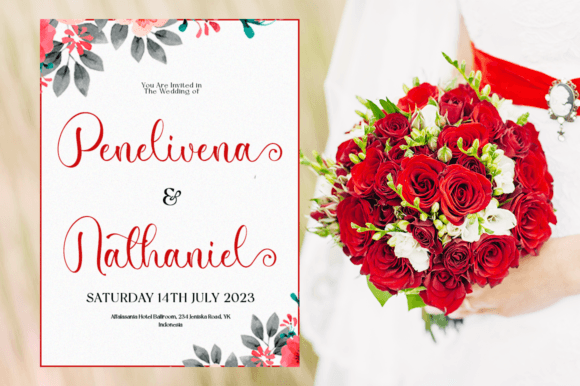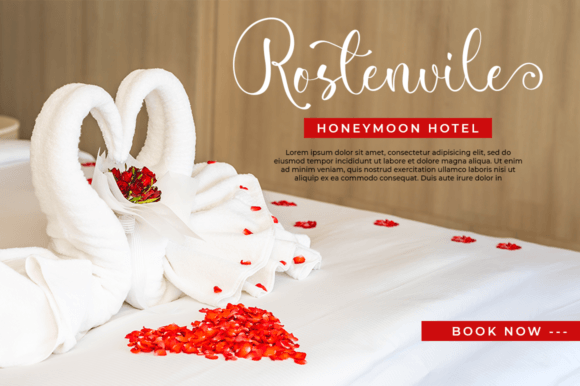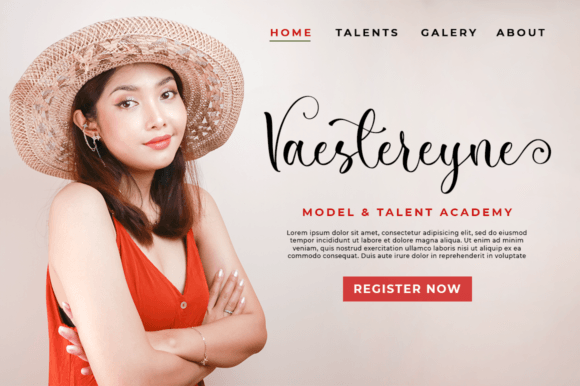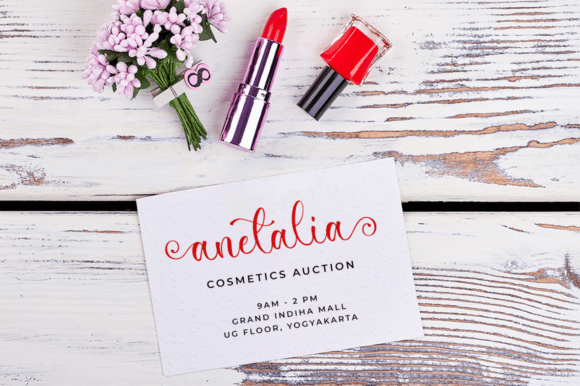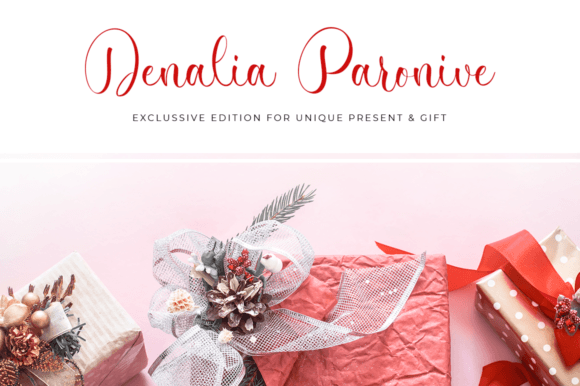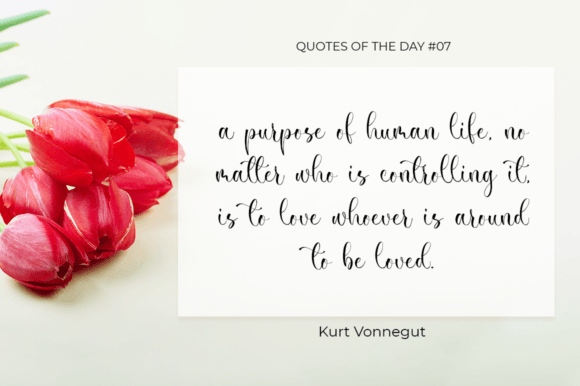
Introduction to Seraphime Font
Seraphime is a beautiful and elegant script font.
Its modern and classy look makes it the perfect font for creating outstanding DIY projects This font is PUA encoded which means you can access all of the glyphs and swashes with ease.
Key Features of Seraphime Font
Why Choose Seraphime Font?
Seraphime Font offers exceptional quality and versatility, making it a valuable addition to your design toolkit. Whether you’re creating for personal projects or commercial use, Seraphime Font delivers professional results.